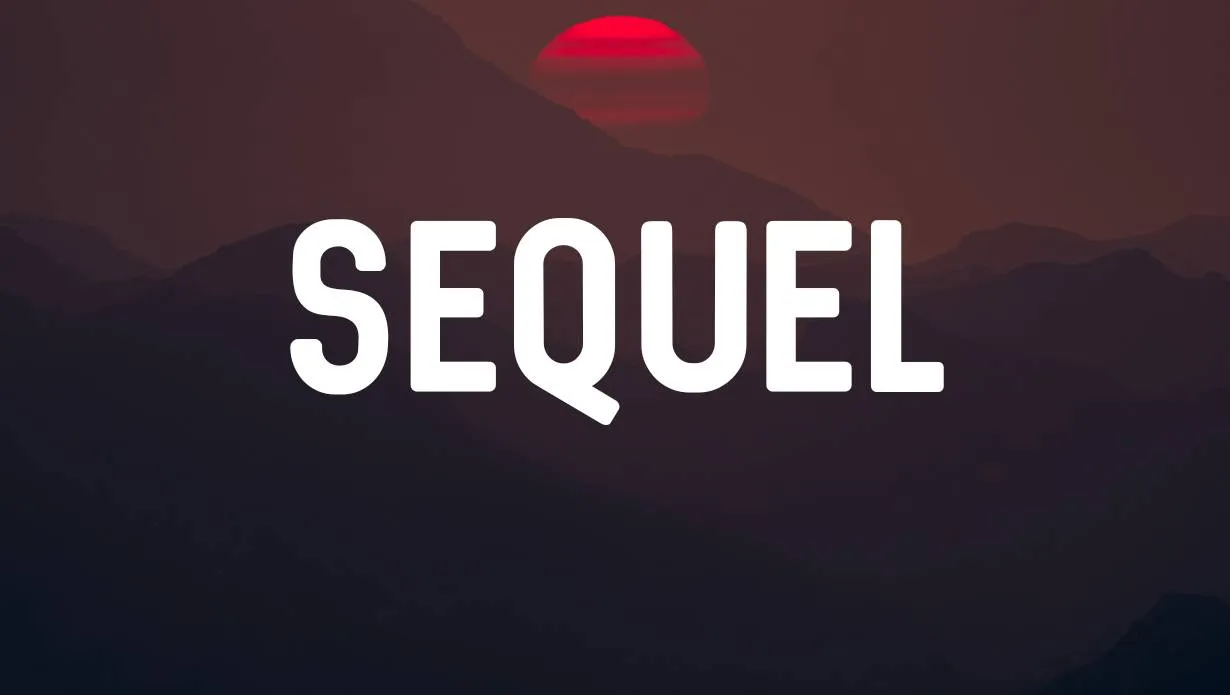
About Sequel Font Free Download
Sequel Font Free Download is a modern typeface available in multiple variants and styles.
- Sequel Font Regular
- Sequel Font Bold
- Sequel Font Italic